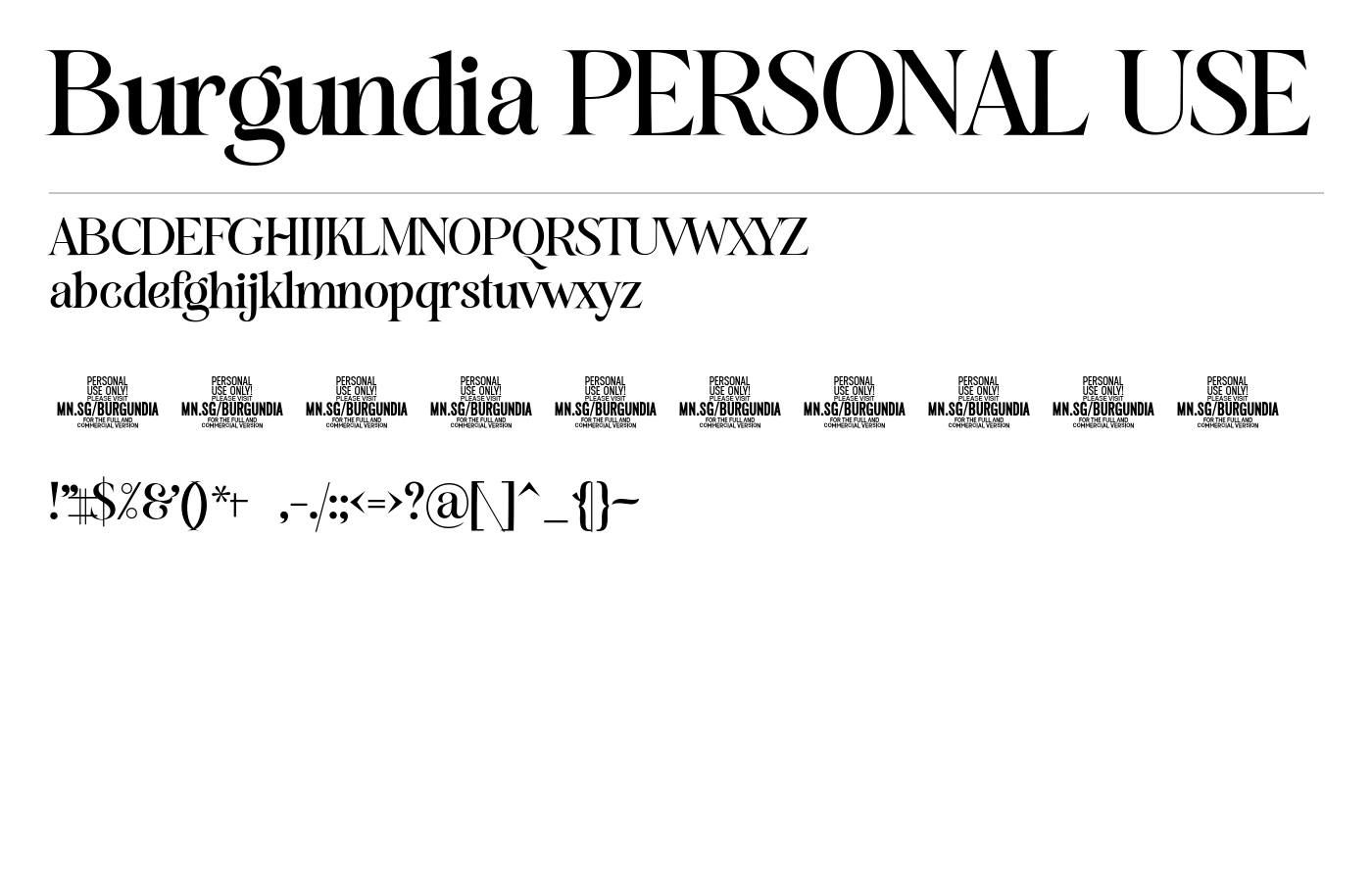
Burgundia is an elegant serif font with a refined, high-contrast design featuring thin, sharp serifs and delicate stroke transitions. Its slender structure and distinctive letterforms, like the single-story ‘g’ and uniquely curved ‘Q’ tail, give it a sophisticated and timeless feel, making it ideal for luxury branding, editorial layouts, and upscale headlines. This font’s graceful style communicates a sense of classic beauty and formality, perfect for projects seeking a polished and stylish appearance.
Burgundia PERSONAL USE Font
About Burgundia PERSONAL USE Font